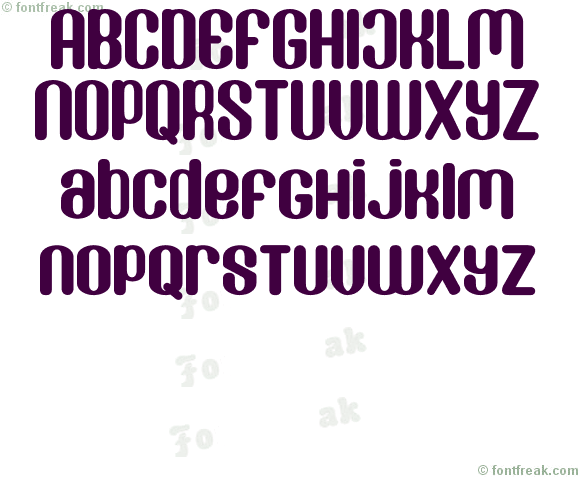
Donaldson demo
About Donaldson demo
The Donaldson demo font by Kong Font is a striking display typeface that exudes modernity while maintaining a touch of classic charm. This font belongs to the sans-serif category, characterized by its clean lines and lack of ornamental features. The visual style features a medium stroke weight with moderate contrast, giving it a balanced and approachable appearance. The spacing between characters is well-structured, ensuring readability while allowing for a distinctive flair. The design includes subtle curves and geometric forms, making it versatile yet unique.
Ideal for a variety of applications, the Donaldson demo font shines in contexts such as wedding invitations, where its modern aesthetic can elevate the overall design. It is also well-suited for movie posters, adding a bold statement that captures attention. Restaurant menus can benefit from its clarity and style, enhancing the dining experience through visually appealing typography. Additionally, this font is perfect for branding needs, making it a great choice for small business owners looking to create memorable logos or marketing materials.
The target audience for the Donaldson demo font includes graphic designers seeking innovative type solutions and content creators who want to add a modern touch to their projects. Small business owners will also find this font appealing, as it helps in establishing a professional image.
What sets the Donaldson demo font apart is its ability to blend contemporary design with functional readability. This makes it an excellent choice for anyone looking to make a strong visual impact without sacrificing clarity. With its availability as a freeware option, the Donaldson demo font free download provides an accessible way for creatives to enhance their design projects and stand out in a crowded market.